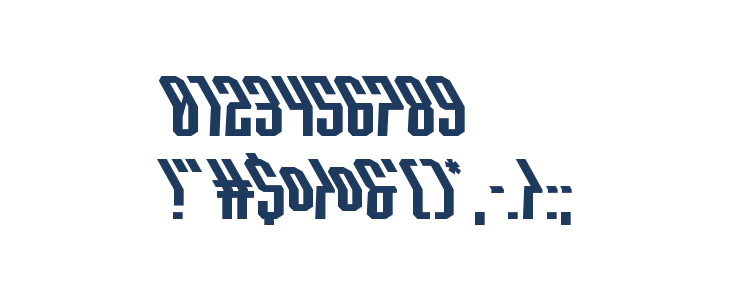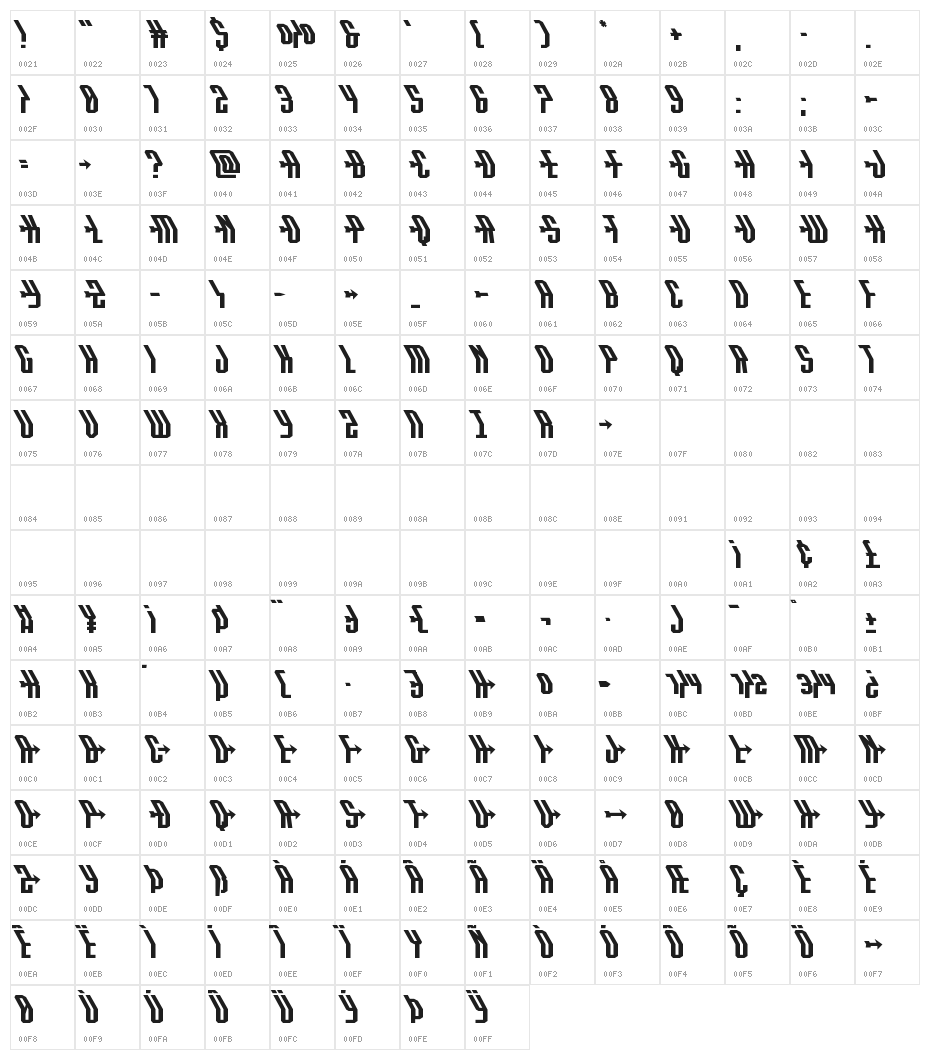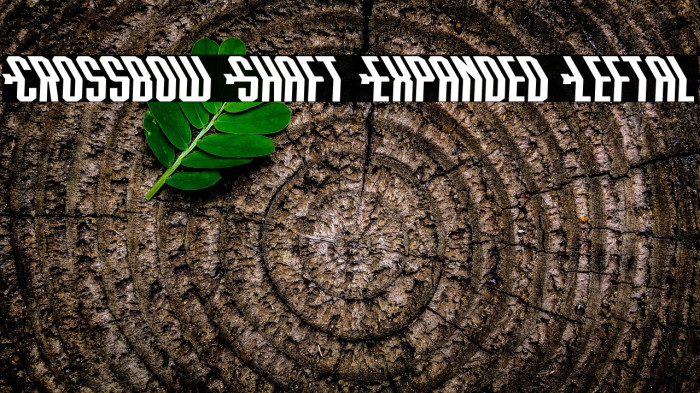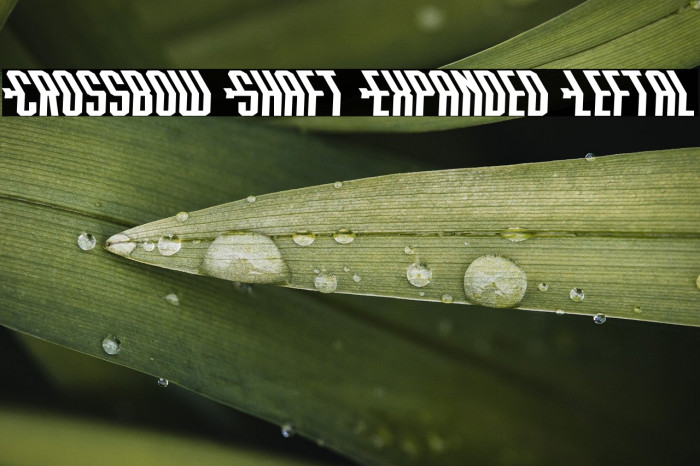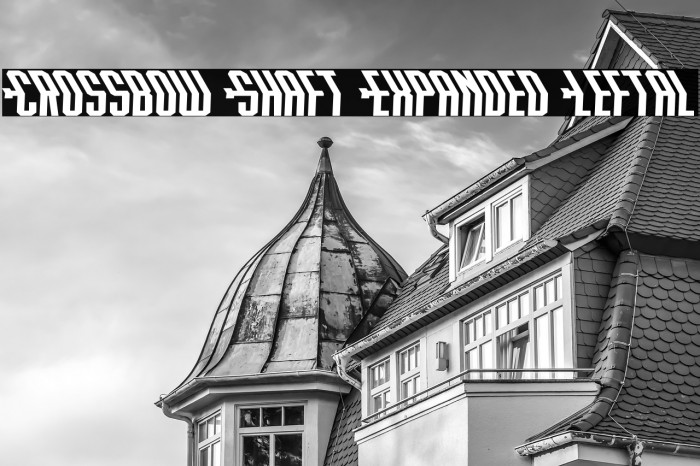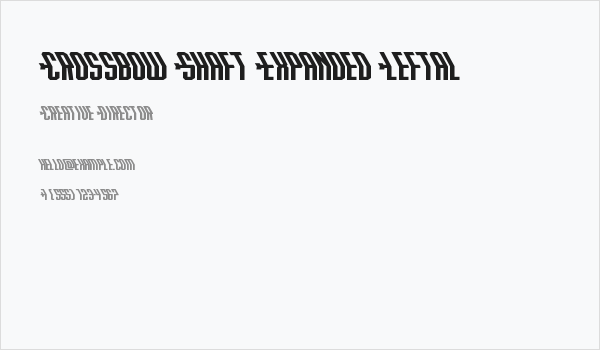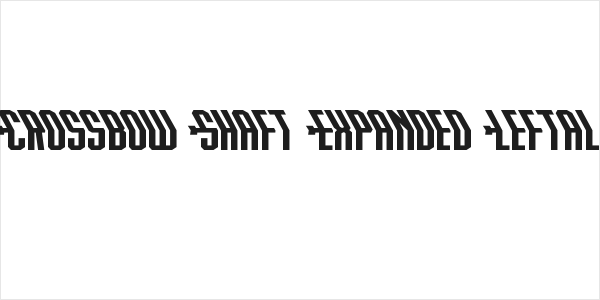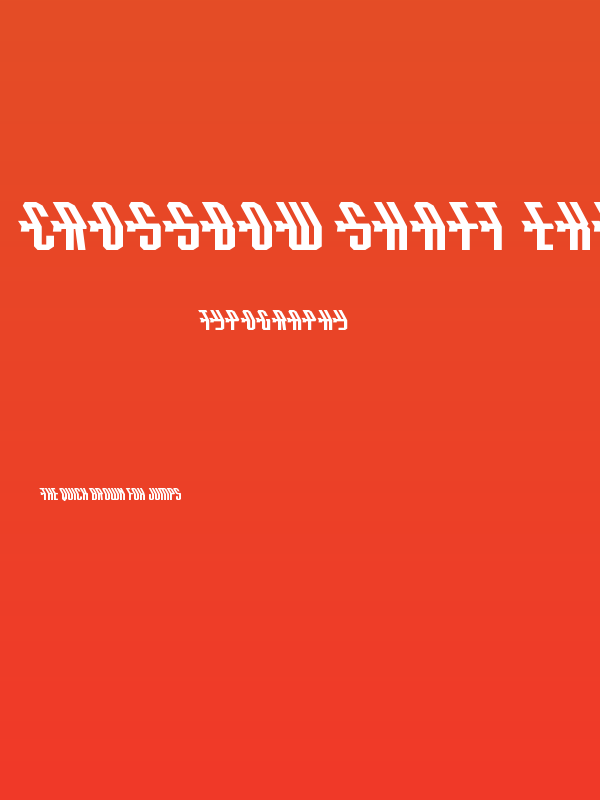
Crossbow Shaft Expanded Leftal Font
Crossbow Shaft Expanded Leftal Description
This font features a bold and expanded style with a distinct geometric and angular design. The characters are uniquely crafted with sharp edges and a futuristic appearance, making them stand out with a strong visual impact. The uppercase letters are particularly striking, with a consistent height and width that create a uniform look. The lowercase letters maintain the same boldness, ensuring readability while adding a touch of modernity. Numbers and special characters are designed to match the overall aesthetic, providing a cohesive look across all elements. The font's expanded width and bold weight make it ideal for attention-grabbing headlines and display purposes.
Proposed ProjectsIdeal for futuristic branding, tech-related projects, video game titles, and sci-fi themed posters.